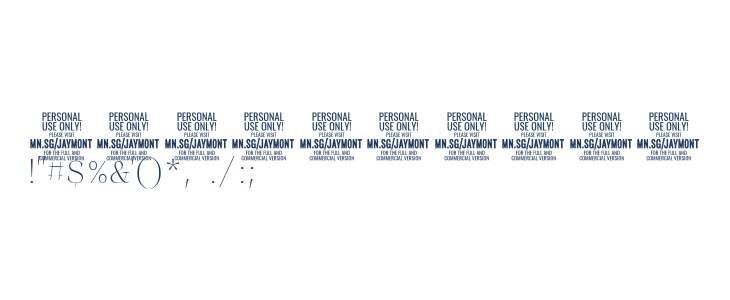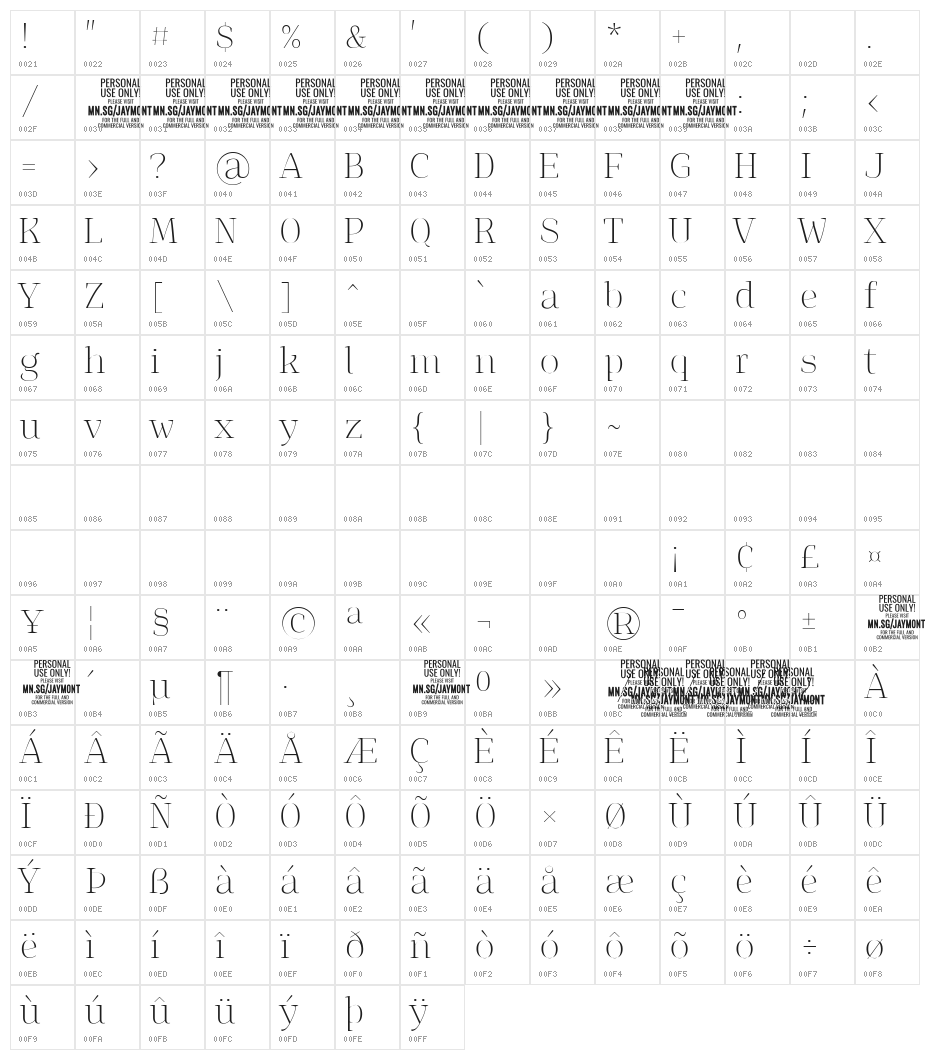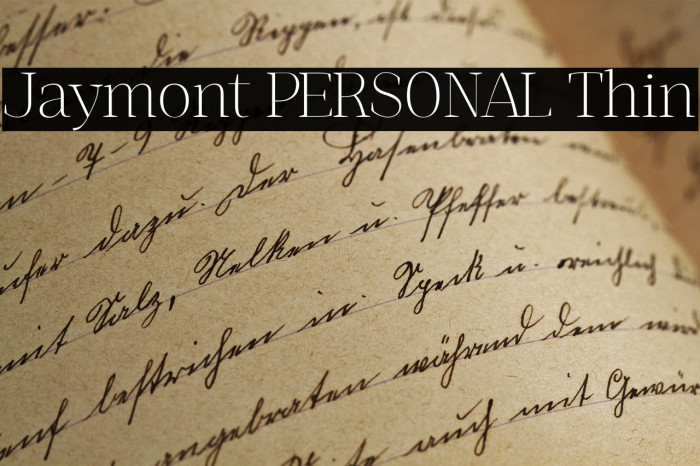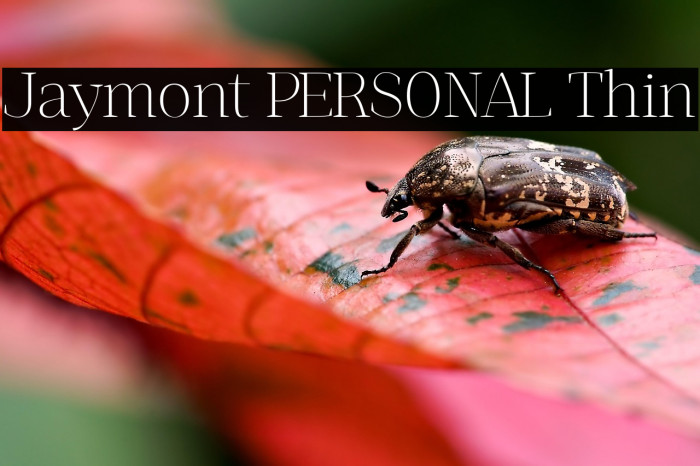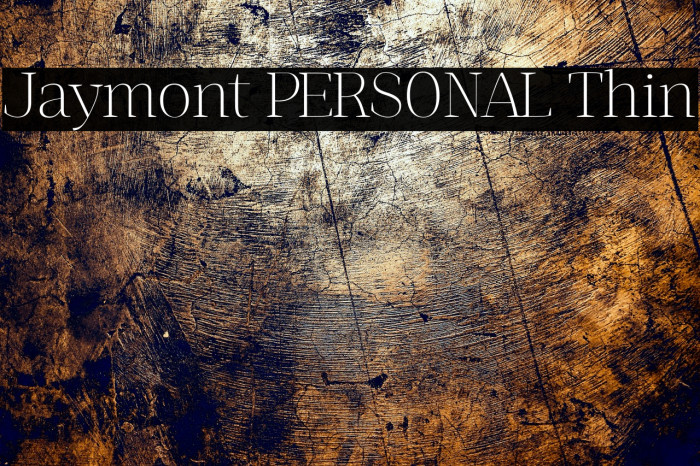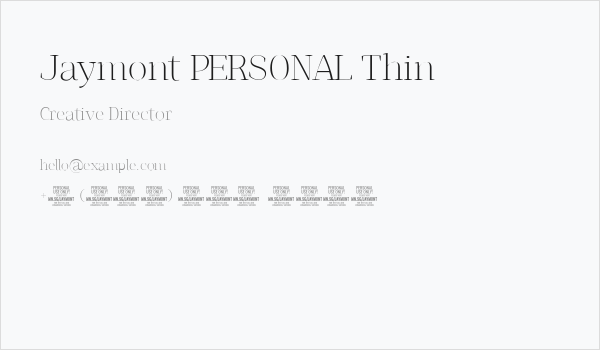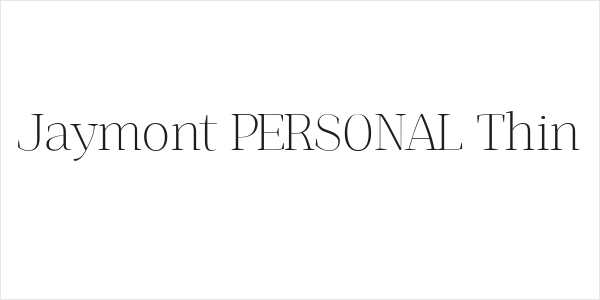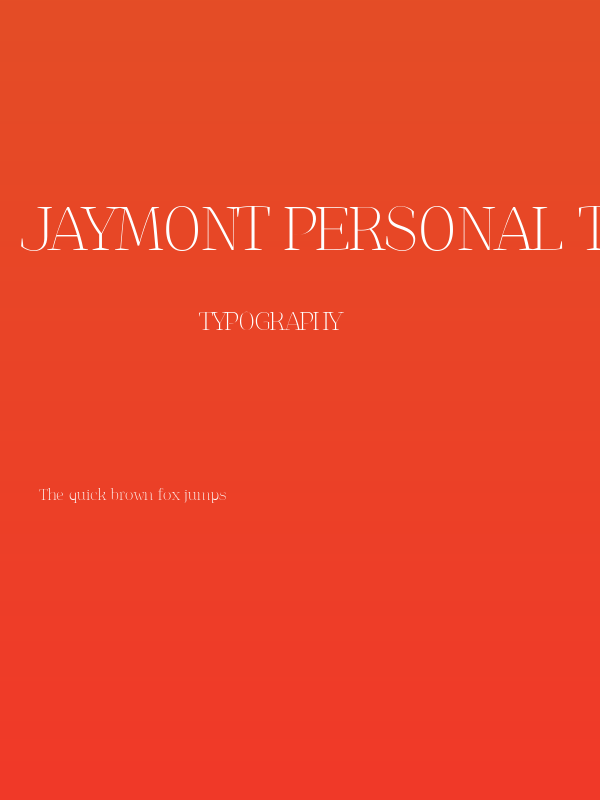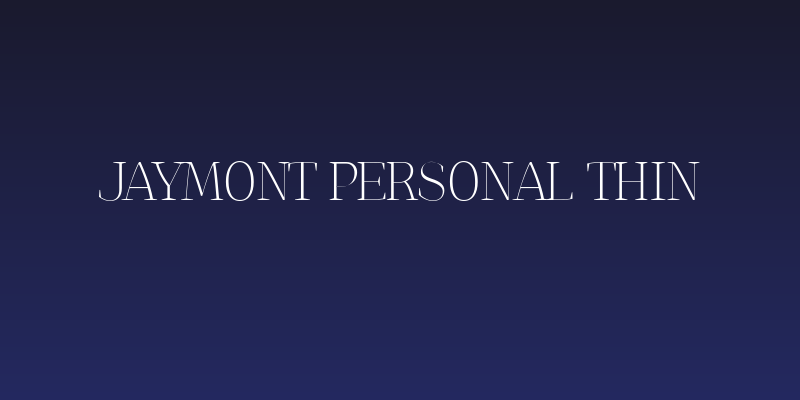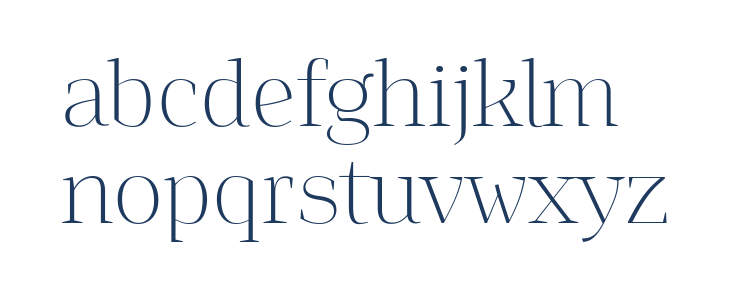
Jaymont PERSONAL Thin Font
Jaymont PERSONAL Thin Description
This font features a refined and elegant design with thin, elongated strokes that convey a sense of sophistication and modernity. The uppercase letters are tall and slightly condensed, while the lowercase letters maintain a consistent height, offering a harmonious balance. The font's thin lines and high contrast between thick and thin strokes give it a delicate appearance, making it suitable for upscale branding and editorial design. The special characters are designed with the same attention to detail, ensuring consistency across all glyphs.
| Proposed Projects | Ideal for luxury branding, fashion magazines, wedding invitations, and elegant editorial layouts. |